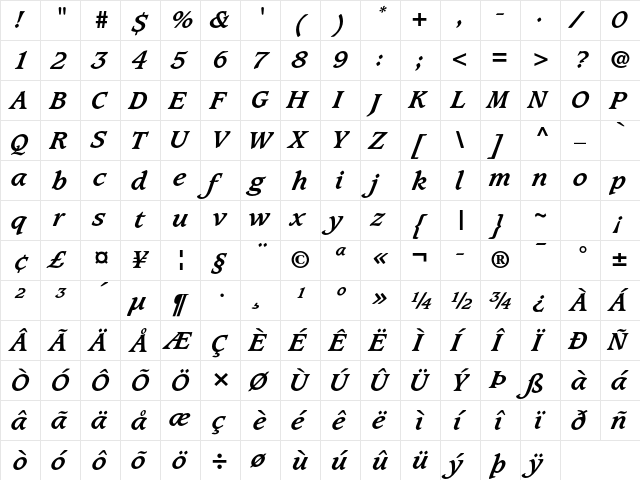
Caxton Std Bold Italic
| Designer | Leslie Usherwood |
Design Context for Caxton Std Typeface
Caxton Std is a composed and adaptable typeface that performs quietly and consistently across a wide range of design contexts. The slanted form adds forward momentum and visual energy. Its bold stroke weight gives it real presence on the page.
Pro Tip: Try Caxton Std for annotation and caption copy alongside an upright companion — the contrast in angle creates a dynamic but ordered typographic system.